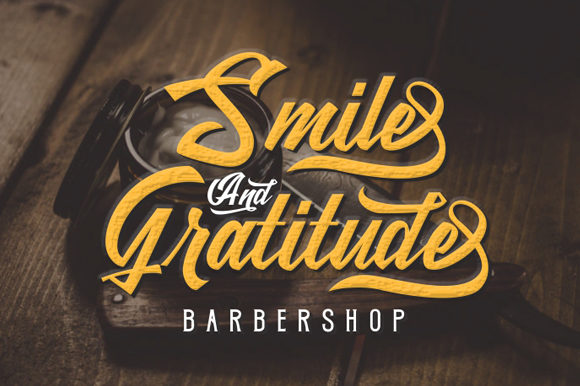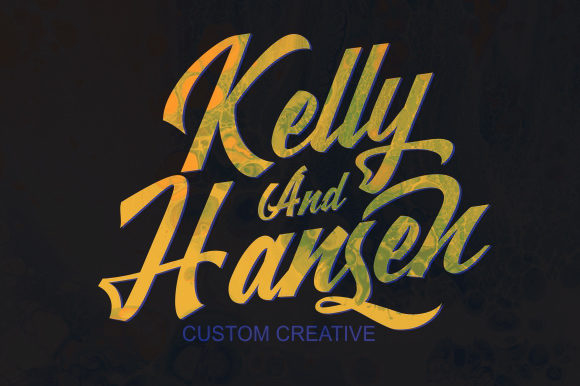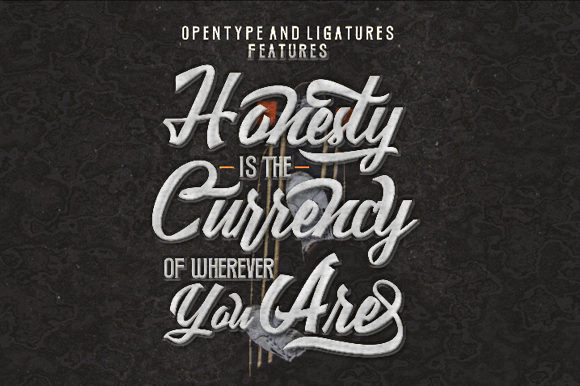
Introduction to Rushland Font
Have you ever been working on a creative project and just couldn’t find the right font to bring your vision to life? I know I have. One minute I’m brainstorming ideas, the next I’m scrolling through font libraries, searching for that perfect combination of style and substance. That’s where the Rushland Font comes in – a nostalgic and bold script that’s sure to elevate any design project.
As a designer, finding a high-quality font can be a game-changer. It’s not just about aesthetics; it’s about conveying the tone and message of your work. With the Rushland Font, you’ll have access to dynamic swashes that add an extra layer of personality to your designs. Plus, with a transparent background, you can easily integrate it into your projects without worrying about unwanted distractions.
Whether you’re working on a branding project, a logo design, or just need a font to add some flair to your social media graphics, the Rushland Font is an excellent choice. And the best part? It’s available for free download, making it an invaluable design resource for creatives on a budget.
Rushland Font Key Features
- Features a unique, modern design with a transparent background, making it perfect for overlays and text effects.
- Perfect for use in logos, branding materials, and digital graphics, thanks to its clean and minimalist aesthetic.
- Designed to be highly legible and versatile, suitable for use in a variety of creative projects, from web design to print materials.
Honest Review: Rushland Font
As a designer, I’m always on the lookout for high-quality design resources that can elevate my creative projects. Recently, I had the chance to try out the Rushland Font, and I must say, it’s been a game-changer for me.
What works well is the font’s unique and modern aesthetic, perfect for anything from digital to print media. I particularly love the Rushland Font’s ability to be customized with a transparent background, making it an excellent choice for overlays or text-based designs. The font also offers a wide range of styles and weights, allowing for endless creative possibilities.
Key Features:
- ✨ Unique and modern design
- ✨ Customizable with transparent background
- ✨ Wide range of styles and weights
However, I do have a few minor complaints. The font can be a bit too bold for some designs, and it may require some tweaking to get the desired look. Additionally, the font’s free download option comes with some limitations, such as watermarked fonts for commercial use.
Overall, I’m impressed with the Rushland Font, and I would definitely recommend it to fellow designers looking for a high-quality design resource. With a little creativity and experimentation, this font can be a valuable addition to any design project.
Using Rushland Font in Creative Projects
Tips for Getting the Most Out of Rushland Font
To get the most out of Rushland Font, use it with a transparent background to create a clean and modern look. You can also pair the font with other high-quality design resources to create a unique and eye-catching design. Additionally, consider using the font in combination with a bold or italic style to add emphasis to your text.
Rushland Font is commonly used in a variety of design projects, including logos, business cards, and brochures. It is also a popular choice for social media graphics and web design projects. With its high-quality design and transparent background, Rushland Font is a versatile and creative design resource that can be used in a wide range of applications.